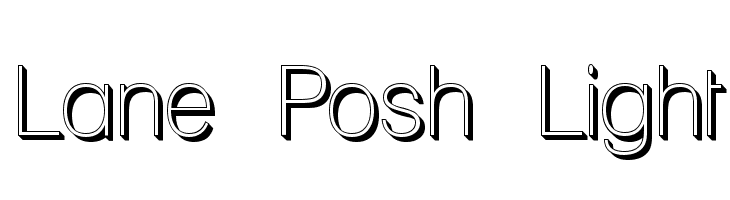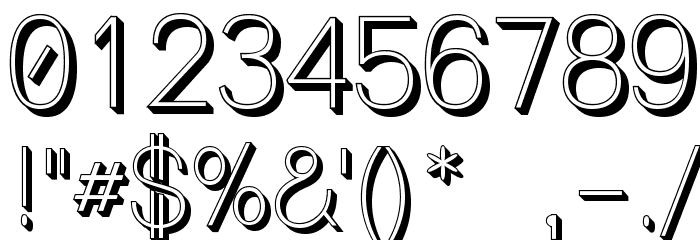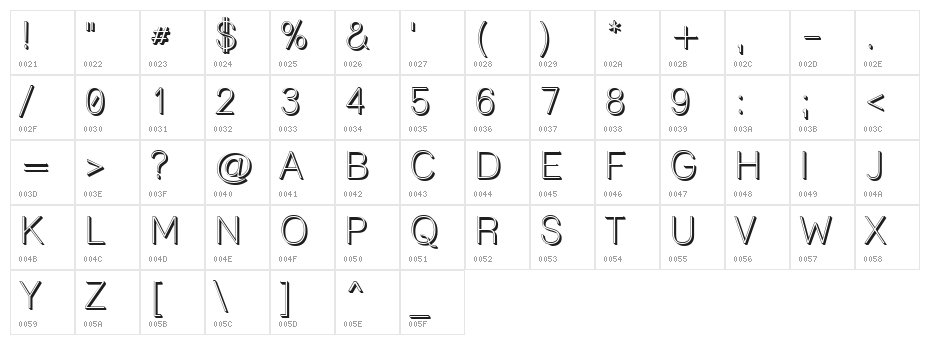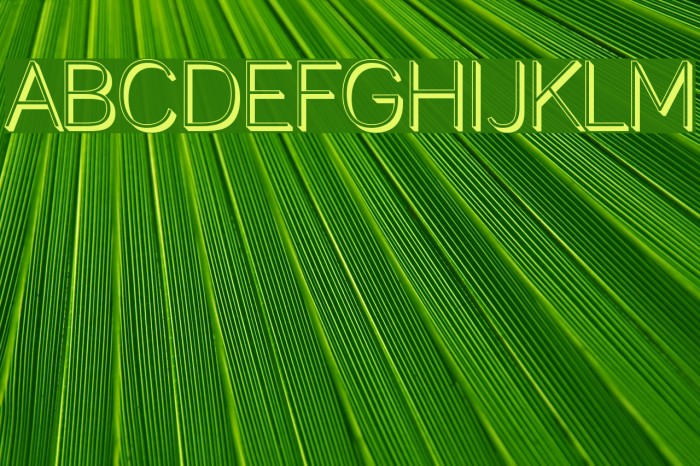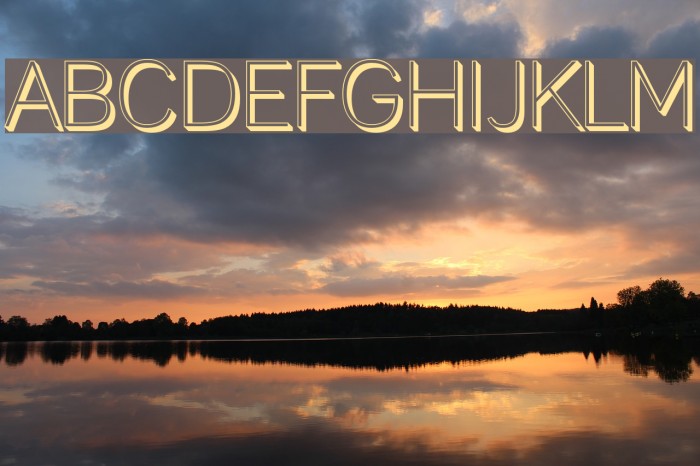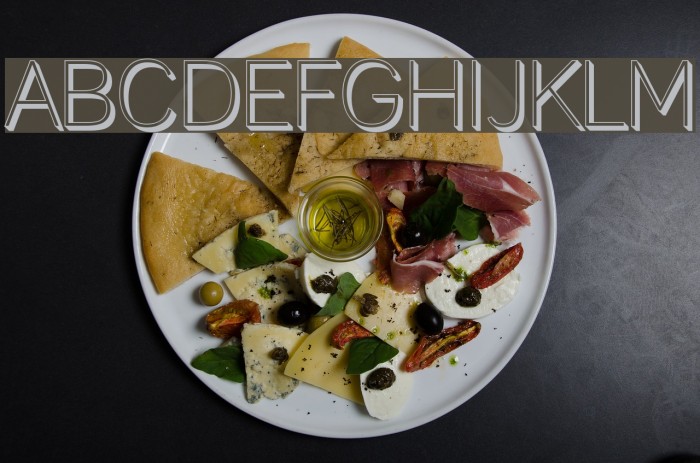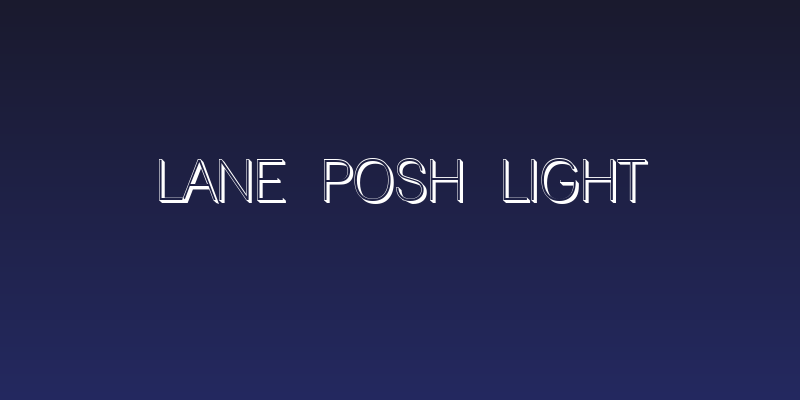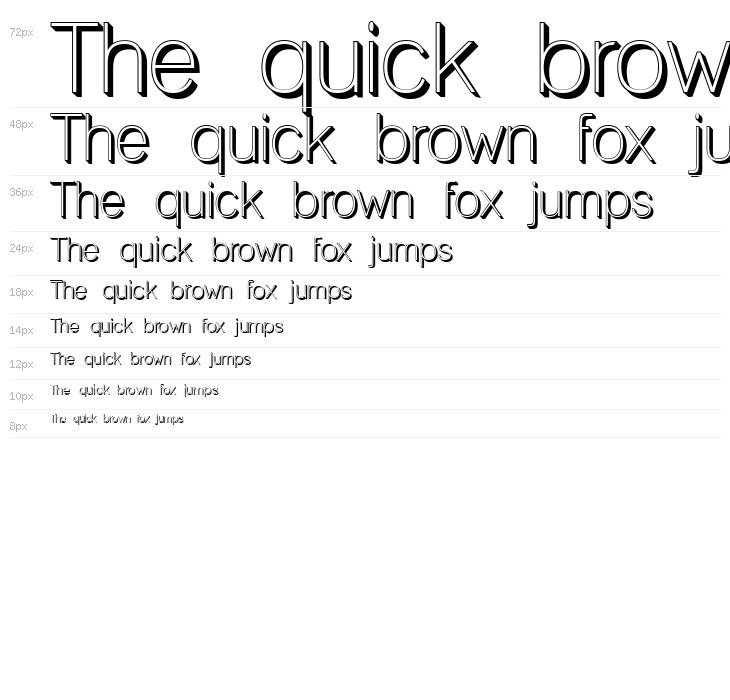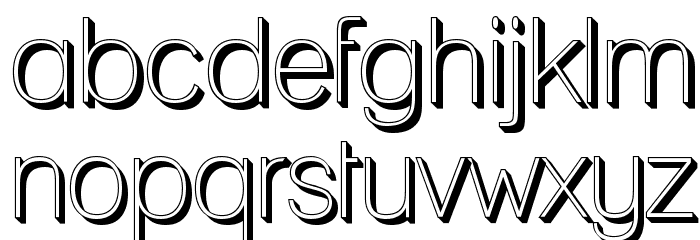
Lane Posh Light Font
Lane Posh Light Description
This font features a modern and sleek design with a clean, geometric structure. The characters are outlined, giving them a distinct, stylish appearance that stands out. The uppercase and lowercase letters maintain a consistent height and width, providing a harmonious look. The numerals are clear and easy to read, matching the overall aesthetic of the font. Special characters are included, offering versatility for various design needs. The font's light weight and outlined style make it suitable for projects that require a contemporary and elegant touch.
| Proposed Projects | Ideal for branding, logos, headlines, and modern web design projects. |